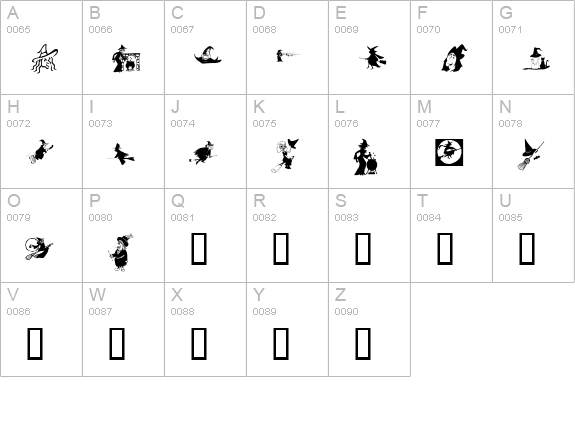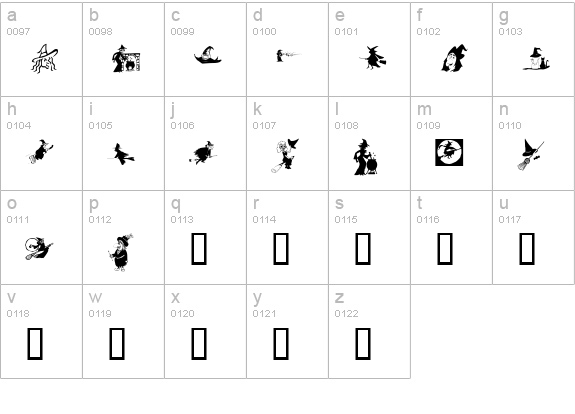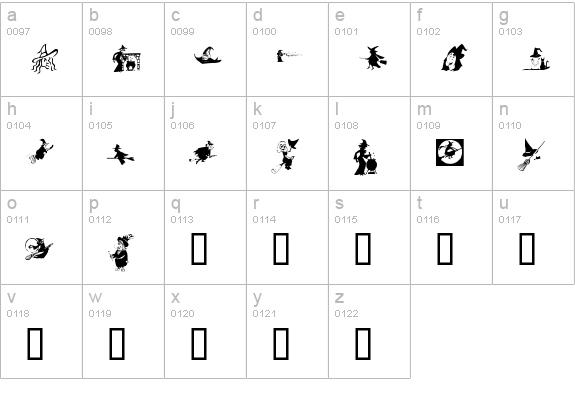
KR Oh Witchy Poo! Font Details
Introducing the enchanting KR Oh Witchy Poo! font, a whimsical and spellbinding typeface that will add a touch of magic to your projects. This mystical font features intricate and playful letterforms that evoke a sense of mystery and charm. Whether you're working on a Halloween-themed design, a children's book, or a fantasy project, KR Oh Witchy Poo! is sure to captivate your audience. Best of all, this captivating font is available for free download at FontsMarket.com. Embrace the mystical world of KR Oh Witchy Poo! and let your creativity run wild with this delightful and eye-catching typeface. Whether you're a professional designer or a hobbyist, this font is perfect for adding a touch of magic to your next project. Download it now and let the enchantment begin!